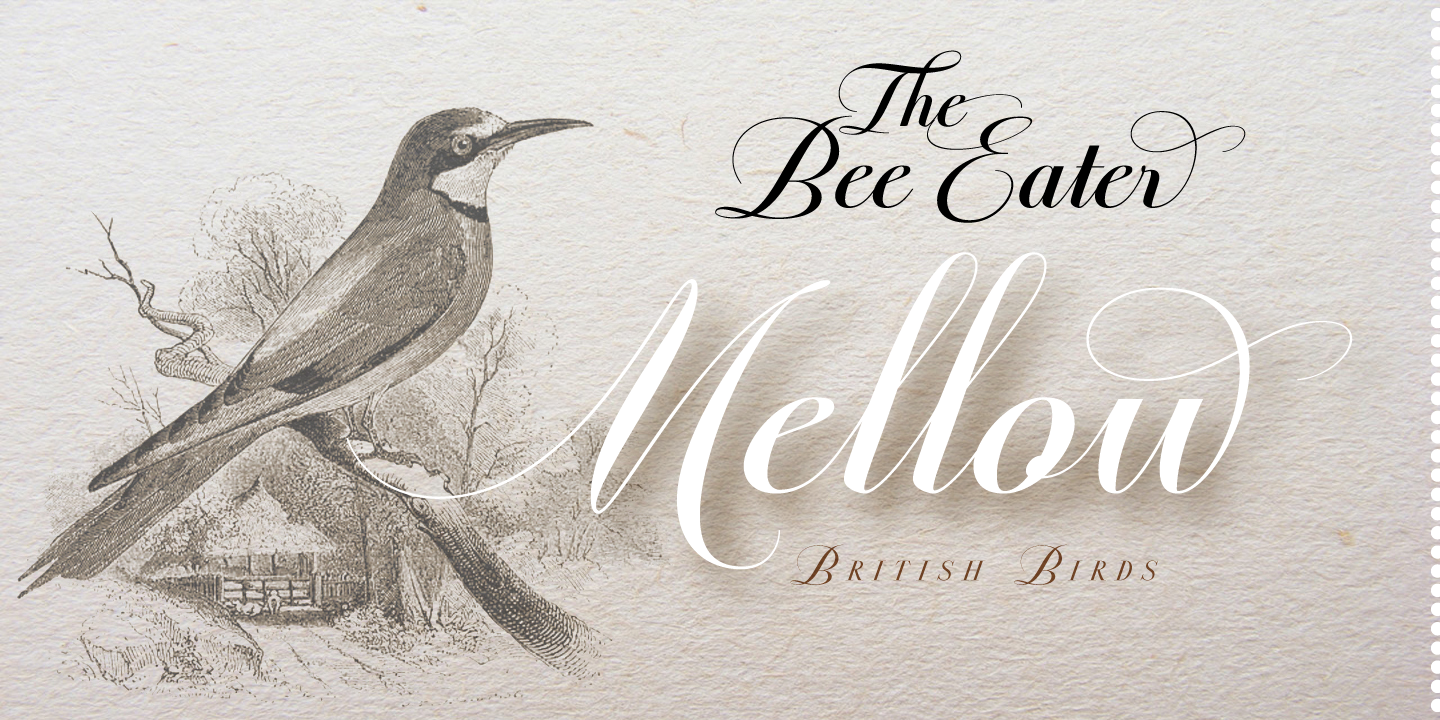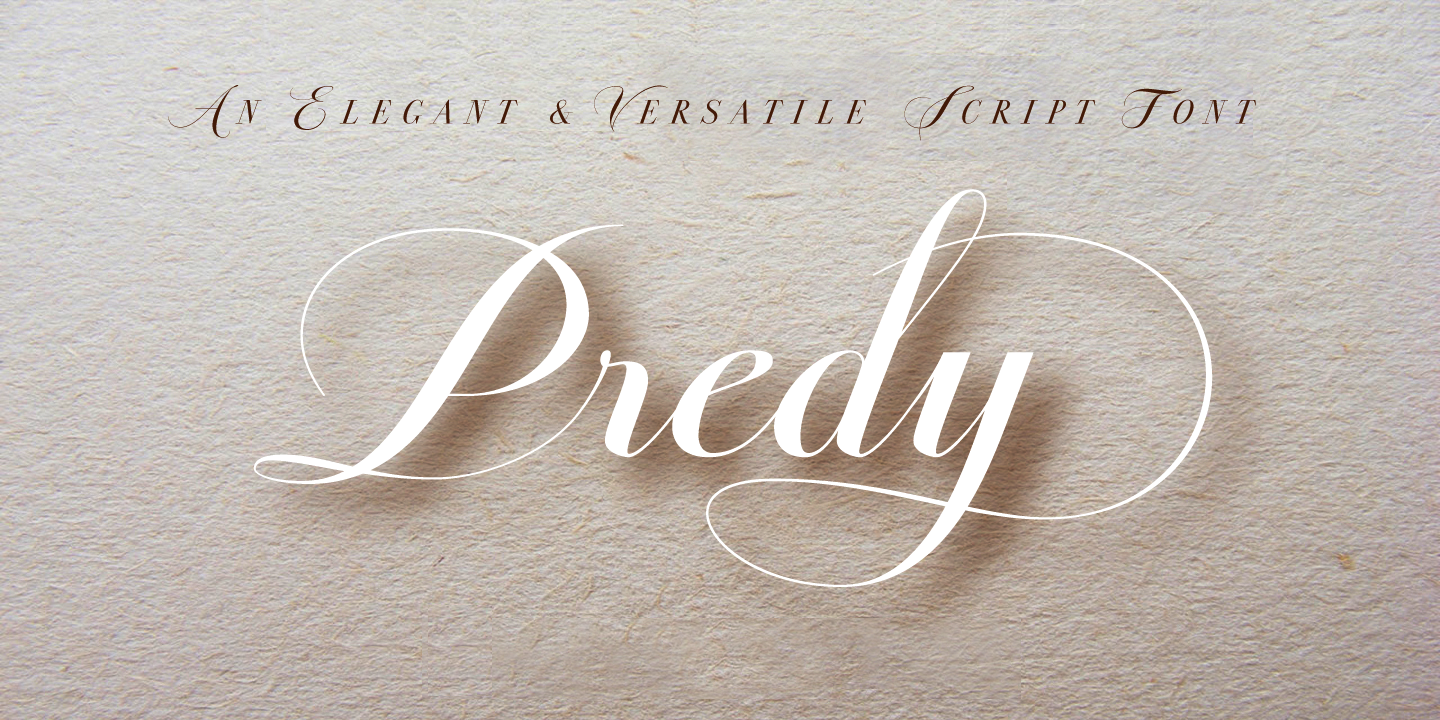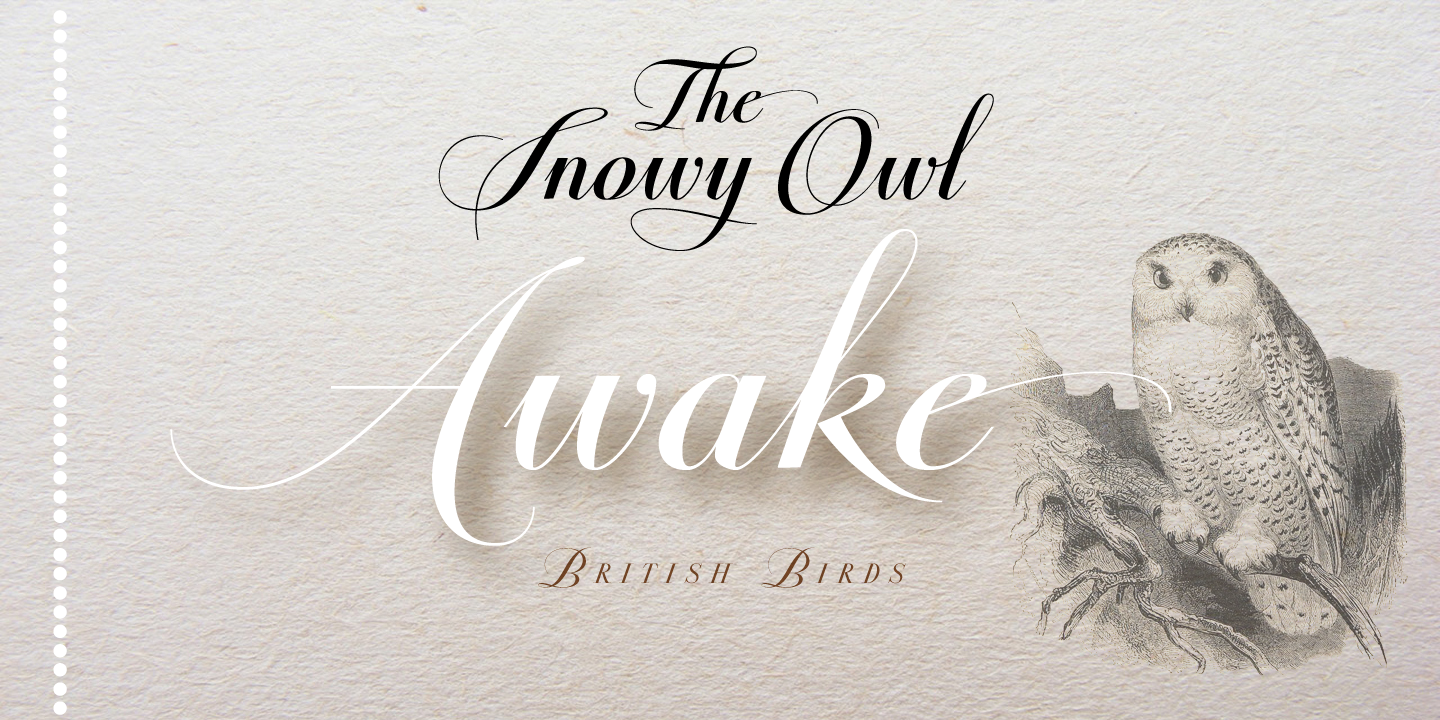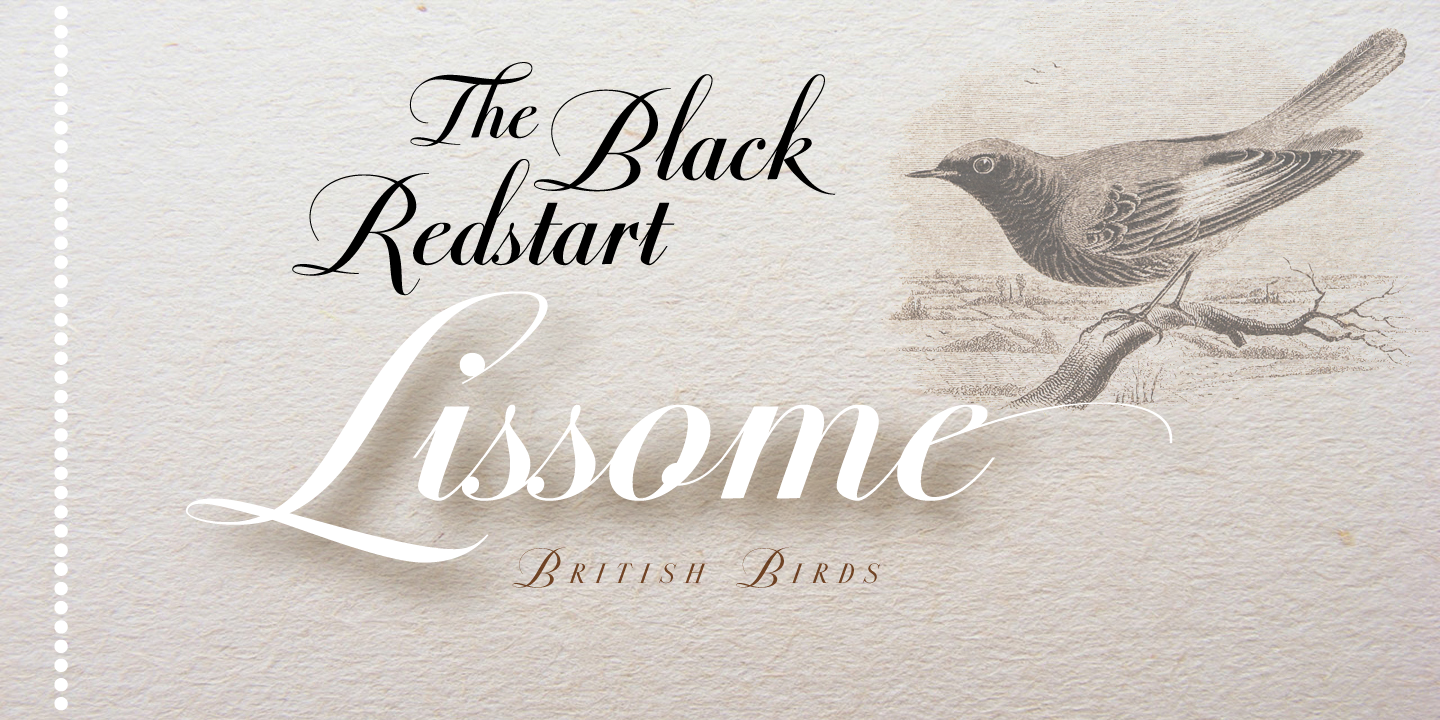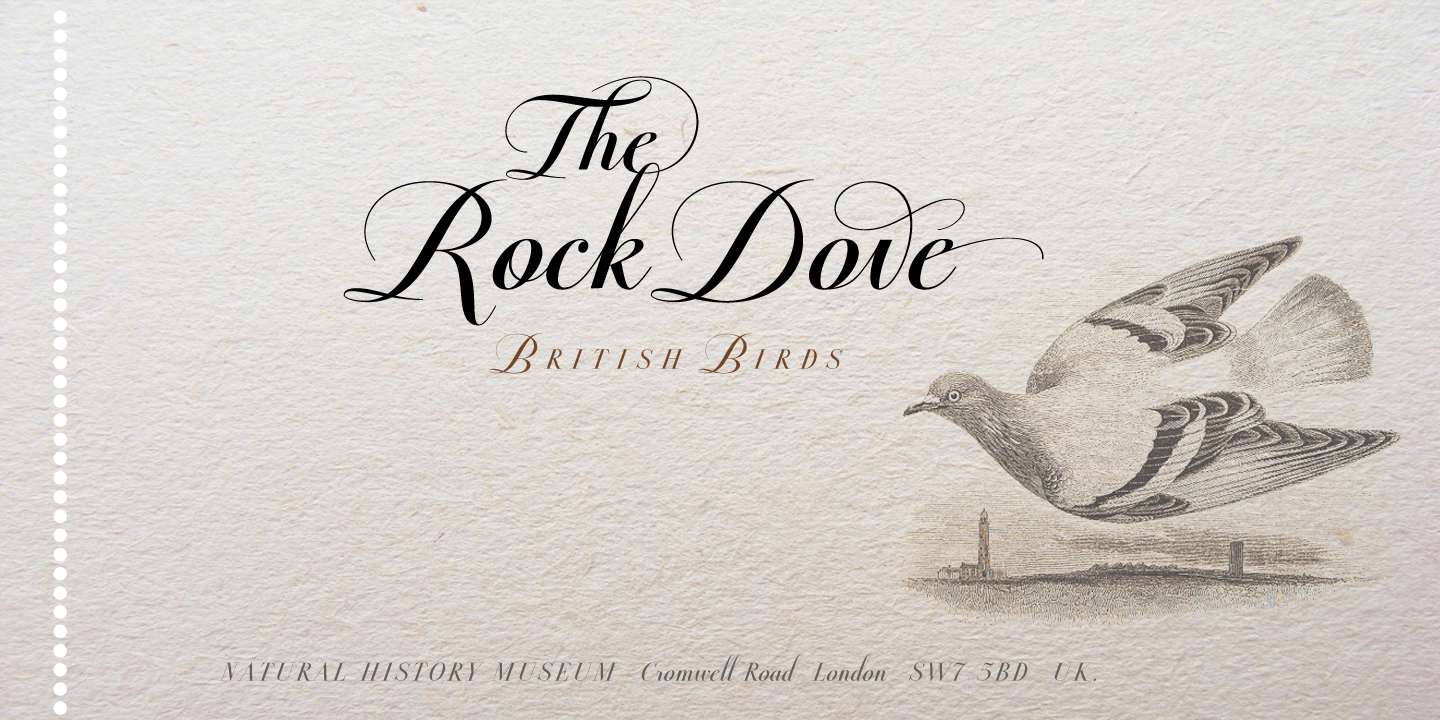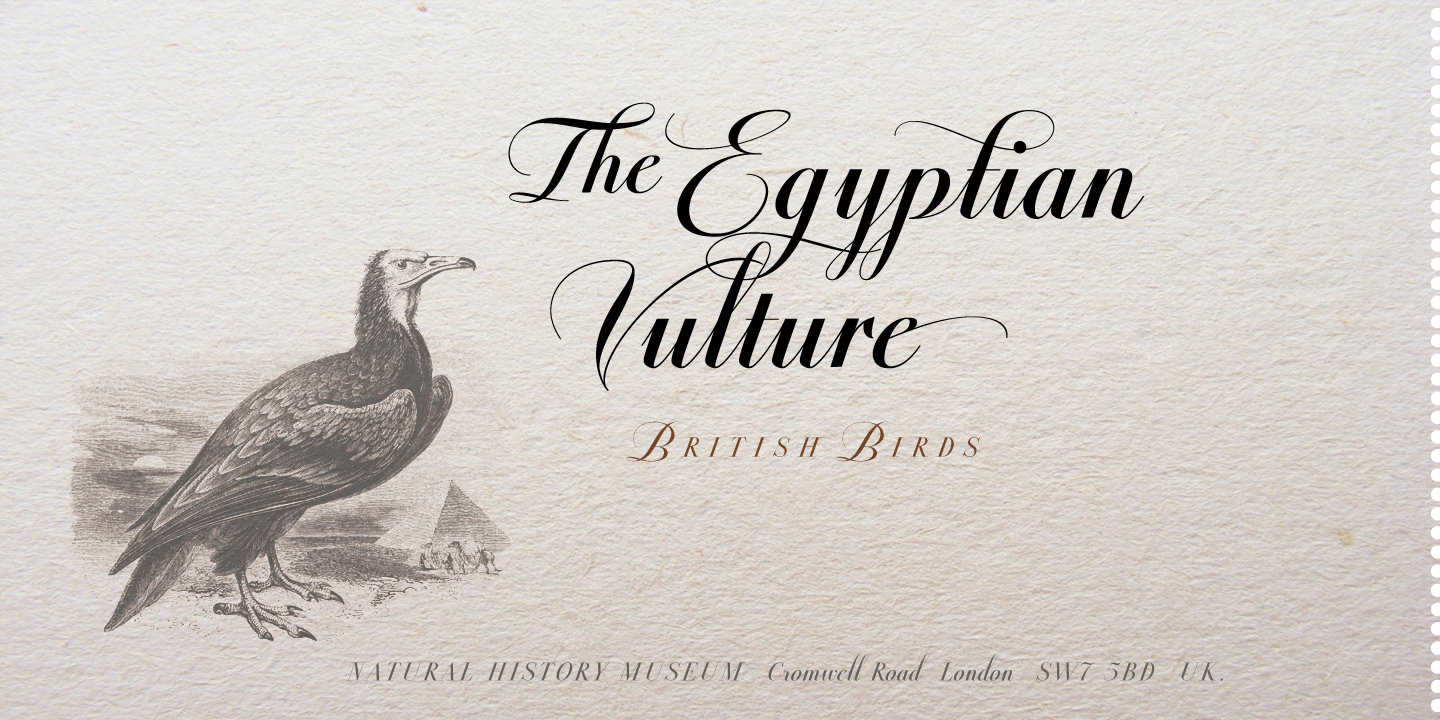
Predy
The Charm of Handcrafted Cursive
In a world dominated by digital type, the charm of handcrafted round cursive continues to captivate designers with its elegance and timeless calligraphic roots. A true pen-formed script still brings unmatched refinement to everything from premium branding to sophisticated editorial work.
Inspired by 19th-Century Penmanship
“Predy” draws inspiration from 19th-century English penmanship. This connected cursive follows the classic “ronde” tradition, featuring bold, looping ascenders that rise twice the height of its compact descenders, all anchored by an intentionally low x-height.
Flourished Alternates for Modern Design
Its uppercase set blends modern Roman precision with a series of beautifully crafted flourished alternates, offering a calligraphic flair that elevates any design.